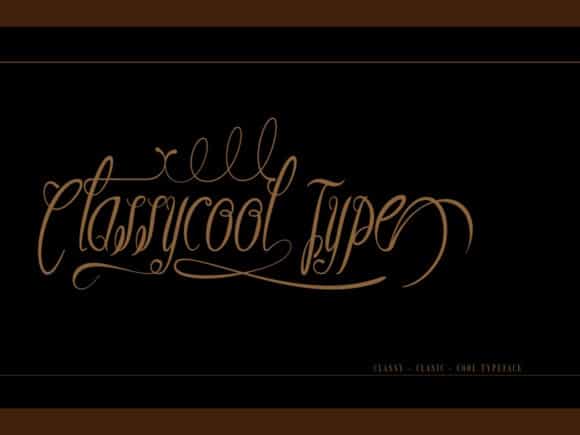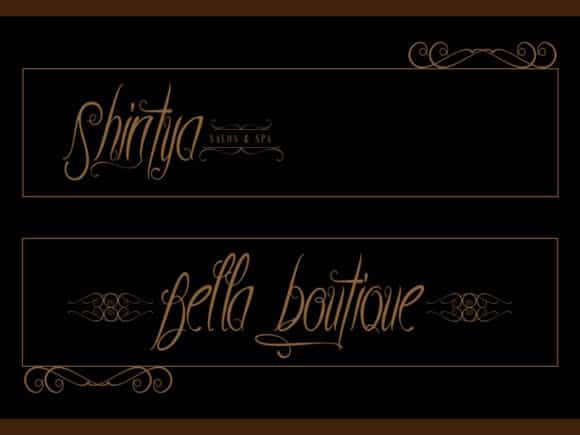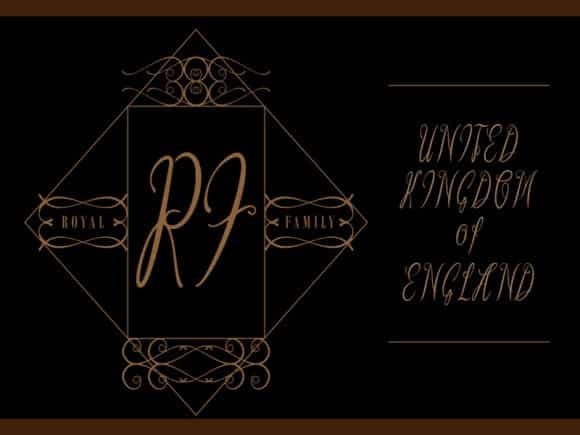
Classycool is a new quality calligraphy font. The top-notch script fonts are those that have both the modern and vintage elements in them. The design is the result of a combination between copper calligraphy and handlettering style. It is a new technology which has the OpenType feature with Stylistic Alternatives, Swash, Ligatures and also consists of various swashes.